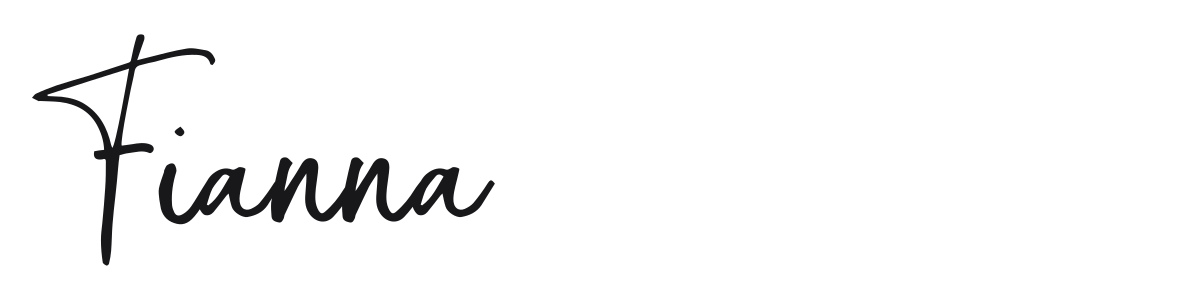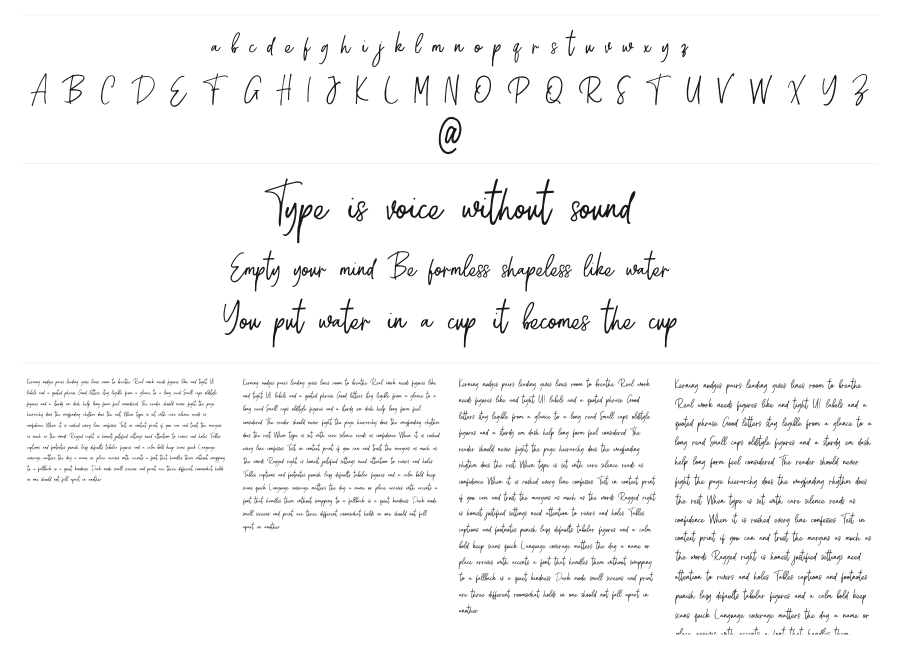
Fianna
Fianna is a casual handwritten script with a loose, flowing rhythm and natural ink-pen character. Moderate stroke contrast between thick stems and thin connectors keeps it feeling lively without tipping into formal calligraphy. It works well wherever a warm, personal touch is needed: product labels, brand logos, social media graphics.